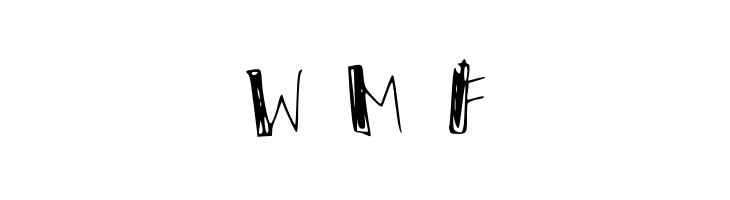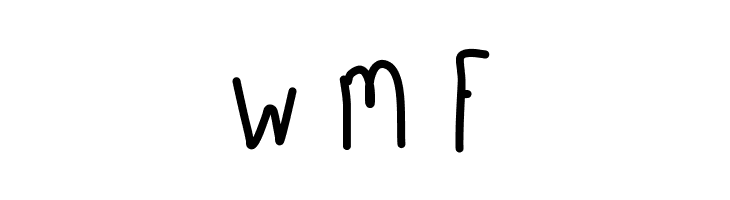
A bold, hand-drawn font with a brush-like texture and expressive style.
A playful, hand-drawn font with tall, narrow characters and a whimsical style.
A bold, brush-style font with an expressive, hand-drawn appearance.
A fluid and elegant handwritten font with elongated letterforms.
A modern, handwritten font with thin, elongated strokes and a casual elegance.
A modern, geometric sans-serif font with a clean and minimalistic design.
A dynamic and elegant script font with flowing, interconnected characters.
A playful, handwritten font with smooth, rounded strokes and a casual appearance.
A bold, hand-drawn font with a textured, expressive style.
A bold, geometric font with sharp angles and a modern style.
A bold, geometric font with sharp angles and a futuristic feel.
A bold, geometric font with sharp angles and modern design.
A bold, geometric outline font with a modern, decorative style.
A dynamic and flowing script font with bold, expressive strokes.
A bold, geometric outline font with sharp lines and a modern feel.
A bold, geometric outline font with a modern and striking appearance.
A lively and dynamic script font with fluid, connected letterforms.
A dynamic and flowing script font with elegant curves and smooth connections.
A modern, clean sans-serif font with geometric influences and uniform stroke widths.
A bold, modern font with geometric shapes and consistent thickness.
A bold, playful font with rounded, whimsical characters.
A bold, expressive brush-style font with dynamic, hand-painted characteristics.
A bold, playful font with thick, rounded characters and a whimsical style.
Bold, rounded, hand-drawn marker style font with a playful and informal look.
A bold, playful font with a stitched outline, perfect for creative projects.
A bold, brush-style font with dynamic strokes and a casual, artistic feel.
A bold, geometric font with strong Art Deco influences and angular forms.